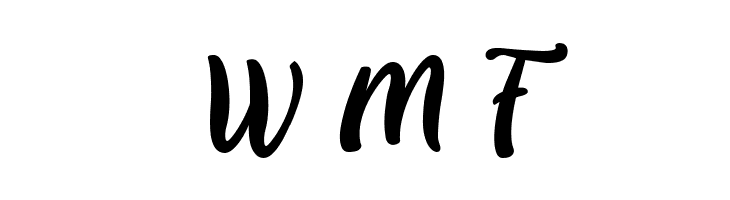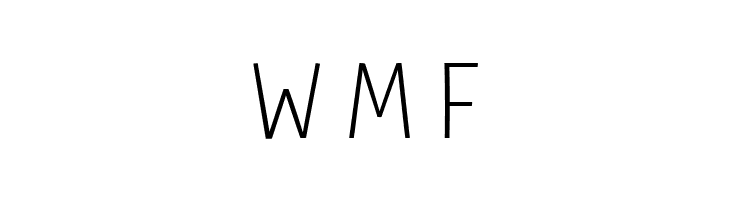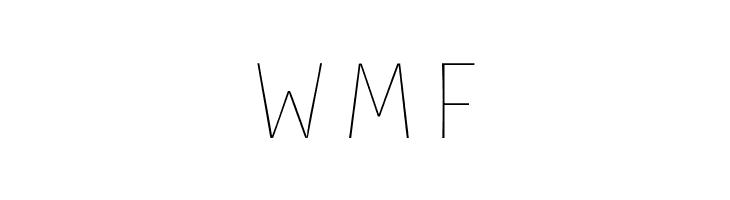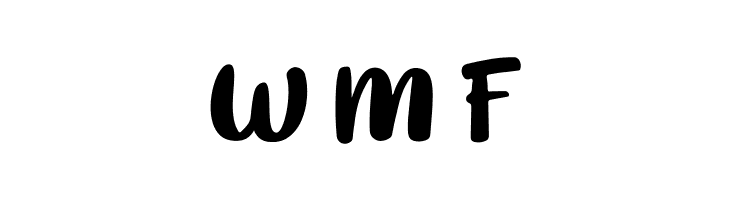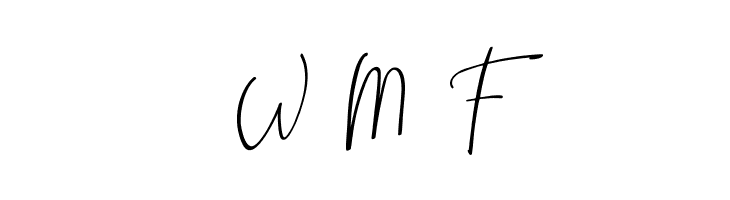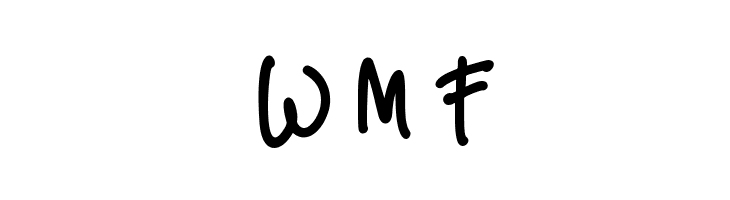
A flowing, cursive font with elegant and interconnected letters.
A clean, modern sans-serif font with a light weight and slightly condensed style.
A modern, thin, and sleek font with consistent spacing and sharp angles.
A bold, hand-drawn font with irregular, jagged edges and dynamic strokes.
A playful, bold handwritten font with smooth, rounded edges and a lively appearance.
A flowing, handwritten font with elegant, elongated letterforms and dynamic line variations.
A bold, handwritten font with a playful and friendly style.
A tall, narrow font with elongated, thin letterforms and a modern aesthetic.
A sleek, thin, and italicized modern font with elegant lines.
A sleek, modern font with thin lines and a clean, geometric design.